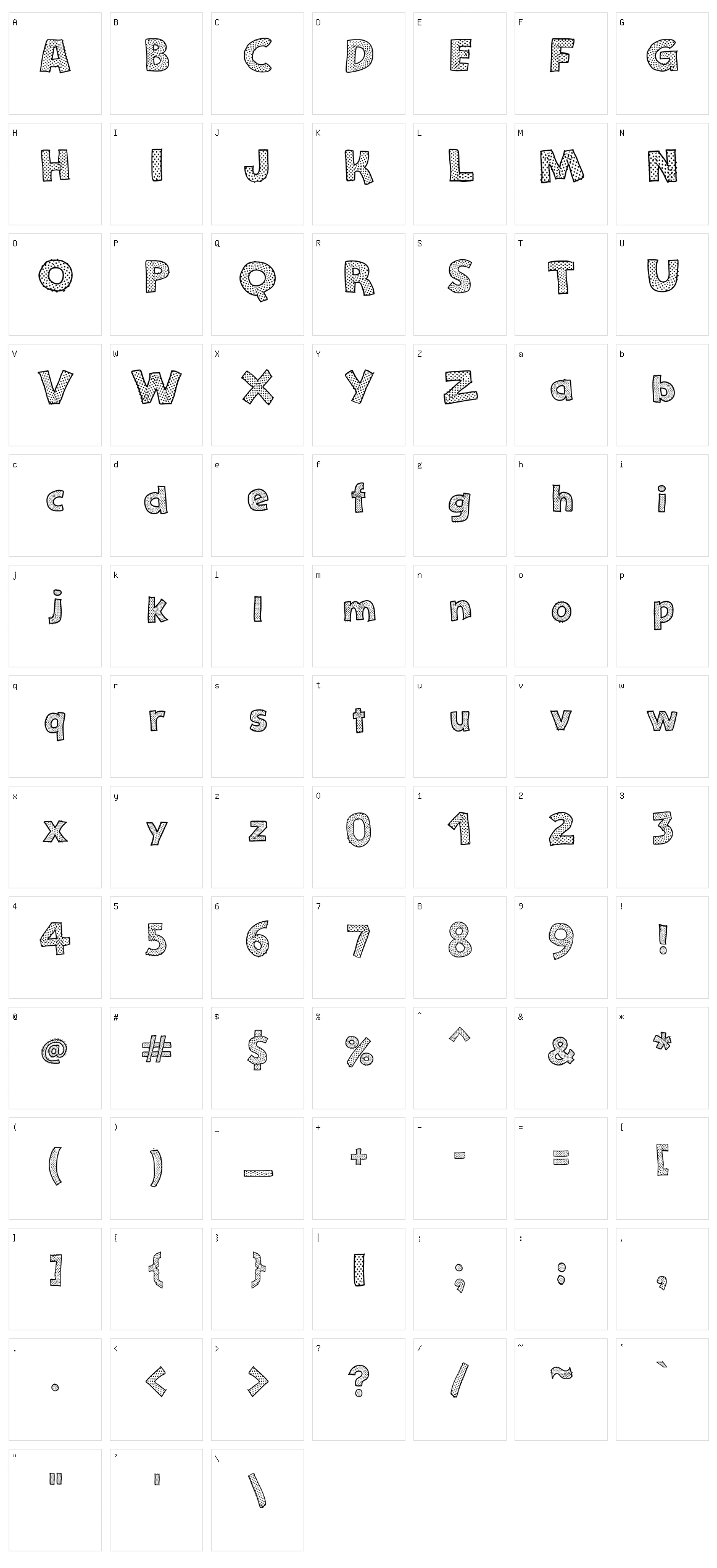
The free font Stefanie Dots is carefully designed by Galdino Otten Fonts, showcasing a thoughtful balance of creativity and usability and falls under the Cartoon font style. When you download the ZIP file, it contains only 382.34 KB of font files, making it lightweight and quick to download. Please review the license details below to understand permitted usage and distribution rights. If license information is not available, we recommend using this font for personal projects only or contacting the author directly for commercial usage permissions.